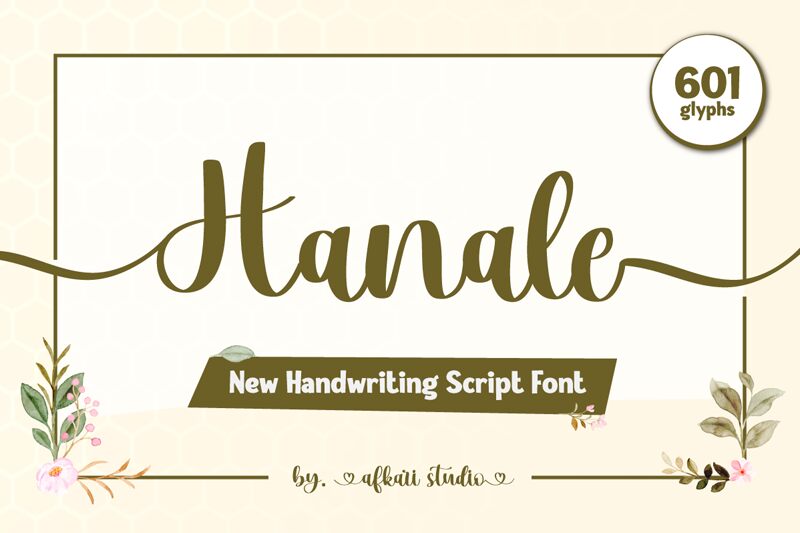
Hanale Regular
Hanale is a beautiful calligraphy font designed by Afkari Studio. Its bold style makes it perfect for projects that require an eye-catching, elegant typography. Hanale is great for creating titles and quotes, wedding invitations, posters, logos, and any other design project that needs a touch of sophistication. With its unique strokes and classic look, this font will surely bring a timeless appeal to your work.